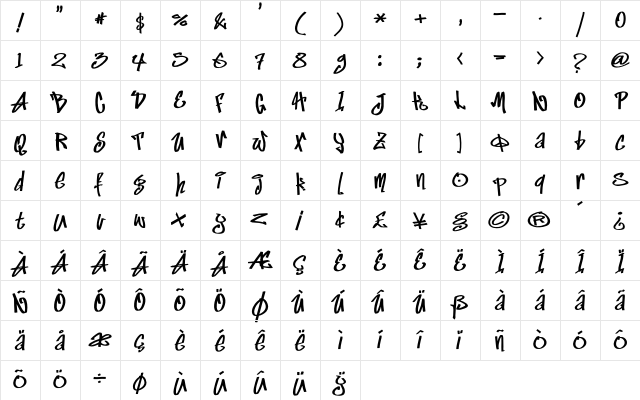
Marker Fat Free Font
Marker Fat
Style: Fat
Marker Fat
Design Context for Marker
Marker is a composed and adaptable typeface that performs quietly and consistently across a wide range of design contexts.